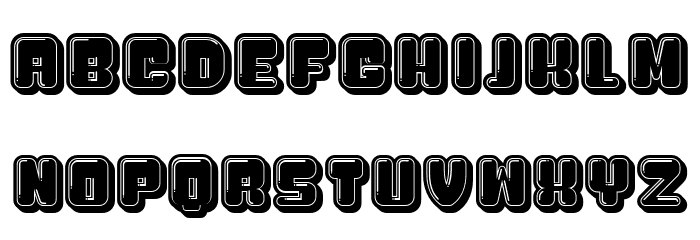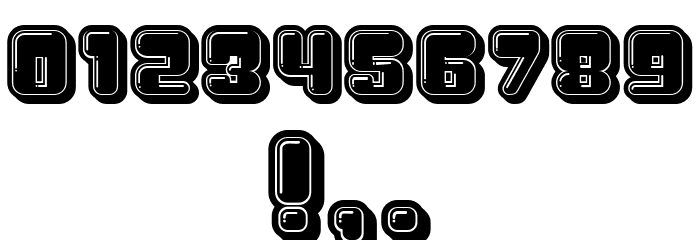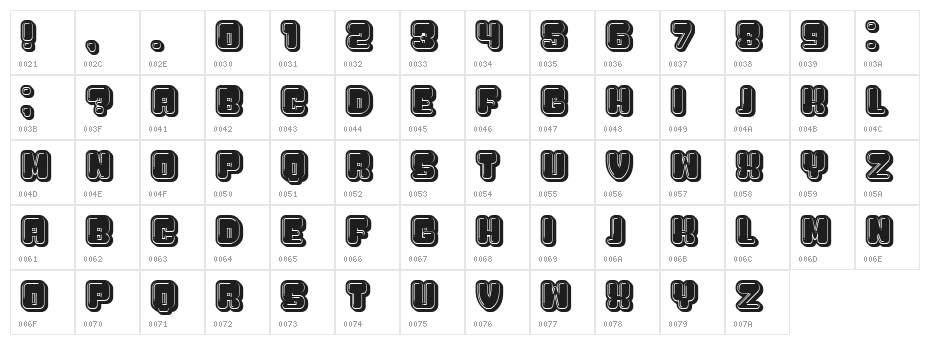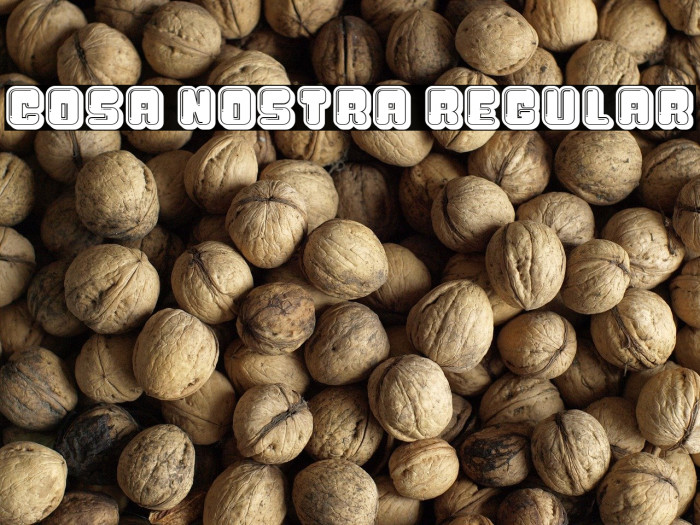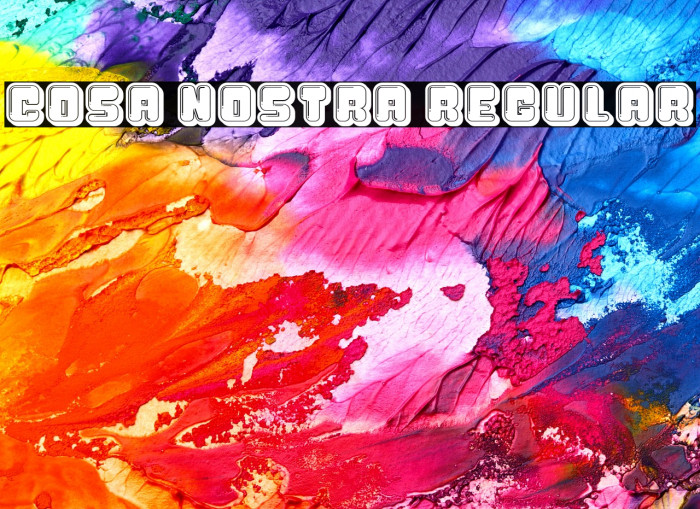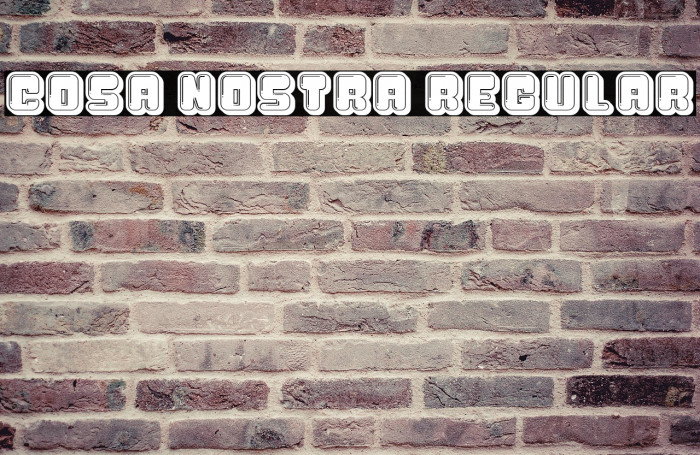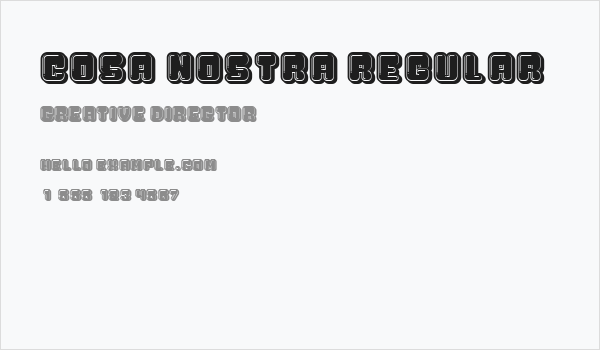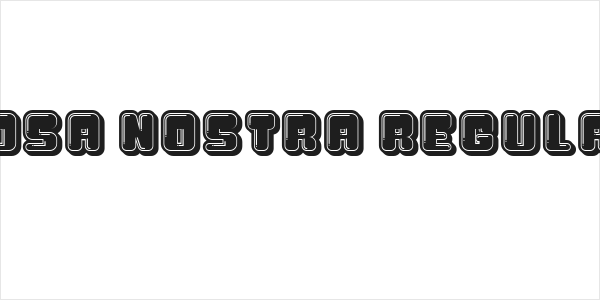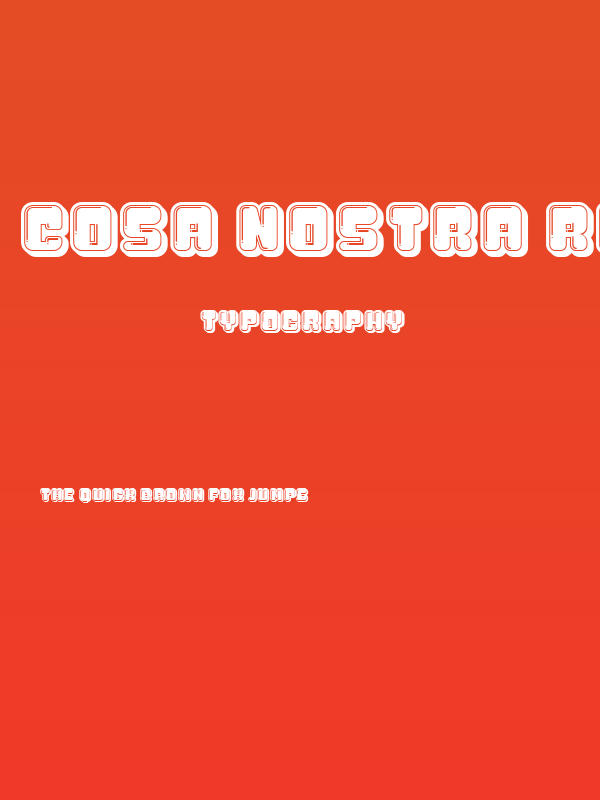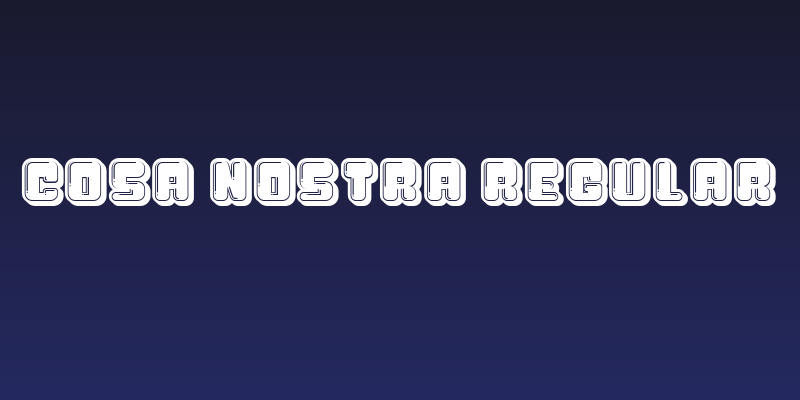
Cosa Nostra Regular Font
This font features a bold, decorative style with a strong presence. The characters are outlined with a thick border, creating a striking visual impact. The design incorporates a three-dimensional effect, giving the letters a sense of depth and volume. The uppercase and lowercase letters maintain a consistent style, with rounded edges and a uniform width. The numerals and special characters follow the same design principles, ensuring a cohesive look across all elements. This font is ideal for projects that require a bold and eye-catching typeface.
A bold, decorative font with a three-dimensional effect and thick outlines.
- Proposed Projects: Ideal for posters, logos, headlines, and any design needing a bold, eye-catching typeface.